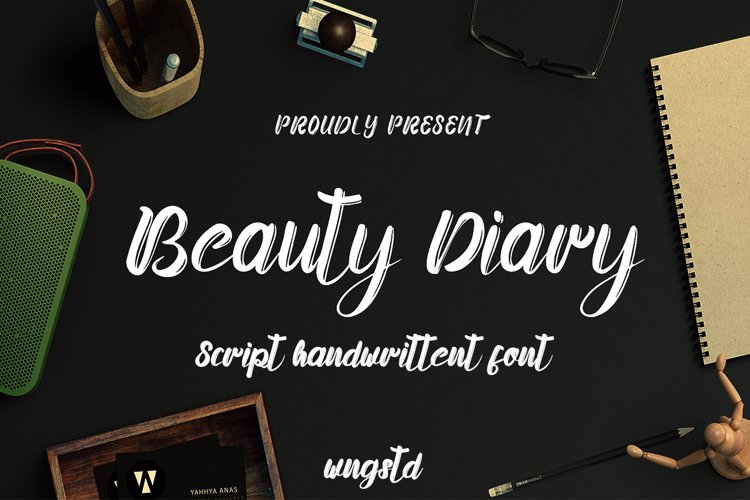
Beauty Diary - handwritten Script calligraphy brush font. perfectly suited for traditional media and the web. great for the logo, banner, poster crafter and graphic artists. compatible with all tools. its playfulness makes it great for creative project., be inspirational wall poster, or for communicating your brand.